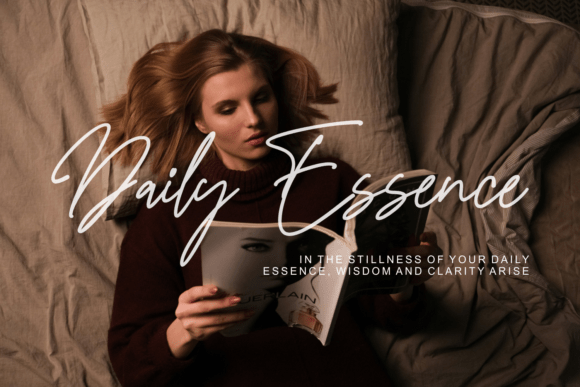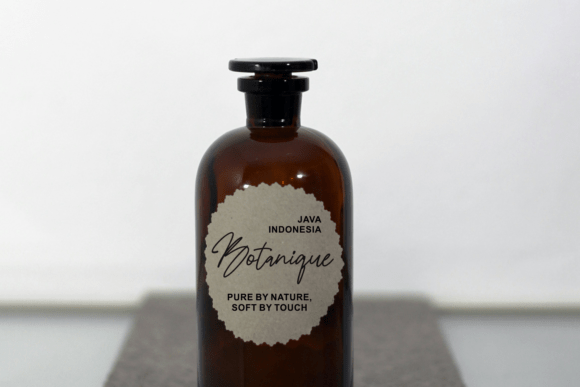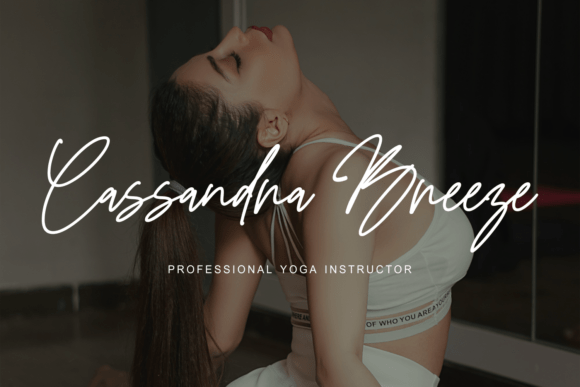
Introduction to Evangeline Calligraphy Font
Have you ever been swept away by the elegance of a handwritten note, or the charm of a beautifully crafted wedding invitation? For designers, moments like these can spark a creative journey, where the perfect font can elevate a project from ordinary to extraordinary. One such font that has captured the hearts of many is the Evangeline Calligraphy Font, a stunning handwritten script that embodies sophistication and romance.
With its fluid strokes and delicate curves, the Evangeline Calligraphy Font is a valuable resource for designers seeking to add a touch of high quality and refinement to their creative projects. Whether you’re working on a wedding invitation, branding, or social media graphics, this signature-style font is sure to make your designs stand out. Plus, with its transparent background and free download options, it’s an accessible design resource that can be easily integrated into your workflow.
Key Features of Evangeline Calligraphy Font
- High-Quality Design: Evangeline Calligraphy Font is a premium design resource ideal for creative projects requiring elegant and refined typography.
- Unique Characteristics: Evangeline Calligraphy Font features a beautiful, flowing script with intricate details and flourishes, adding a touch of sophistication to any design project.
Honest Review: Evangeline Calligraphy Font
I recently had the chance to work with the Evangeline Calligraphy Font, and I must say it’s a fantastic addition to any designer’s toolkit. As a go-to design resource, this font is perfect for creating high-quality visual content that stands out.
- ✨ Beautiful, elegant handwriting style that adds a touch of sophistication to any creative project.
- ✨ High-quality design that’s perfect for print and digital use.
- ⚠️ Limited font sizes and weights available, which might limit its use in certain projects.
- ⚠️ Not ideal for large blocks of text, as it can become overwhelming.
Overall, I’m thoroughly impressed with the Evangeline Calligraphy Font. Its unique design and high-quality construction make it a valuable asset for any designer. If you’re looking to add a touch of elegance to your creative project, I highly recommend giving it a try.
Common Use Cases for Evangeline Calligraphy Font
The Evangeline Calligraphy Font is perfect for use in a variety of creative projects, including wedding invitations, birthday cards, and other special occasion designs. It’s also ideal for use in business presentations, such as PowerPoint or Word documents, where a touch of elegance is needed.